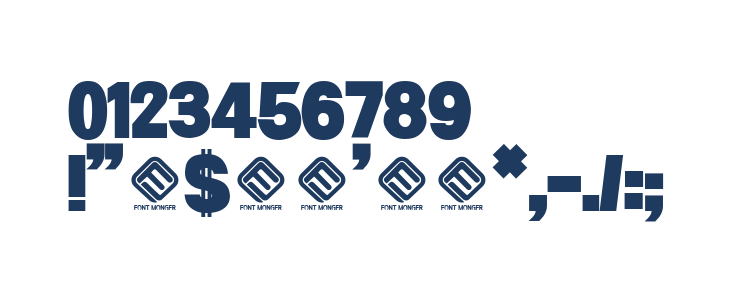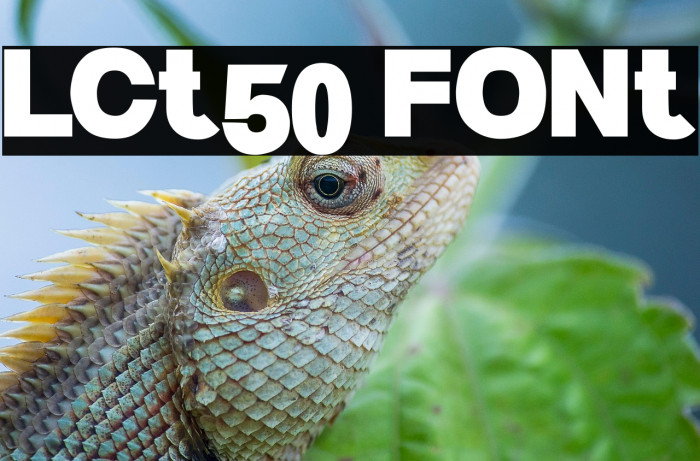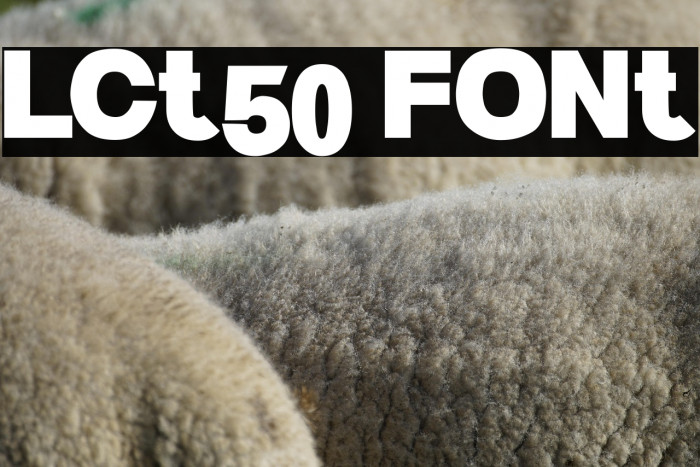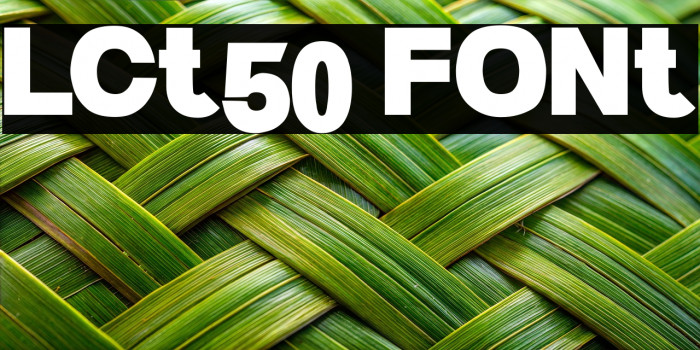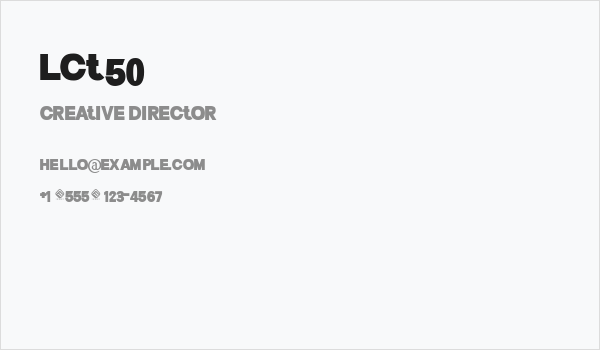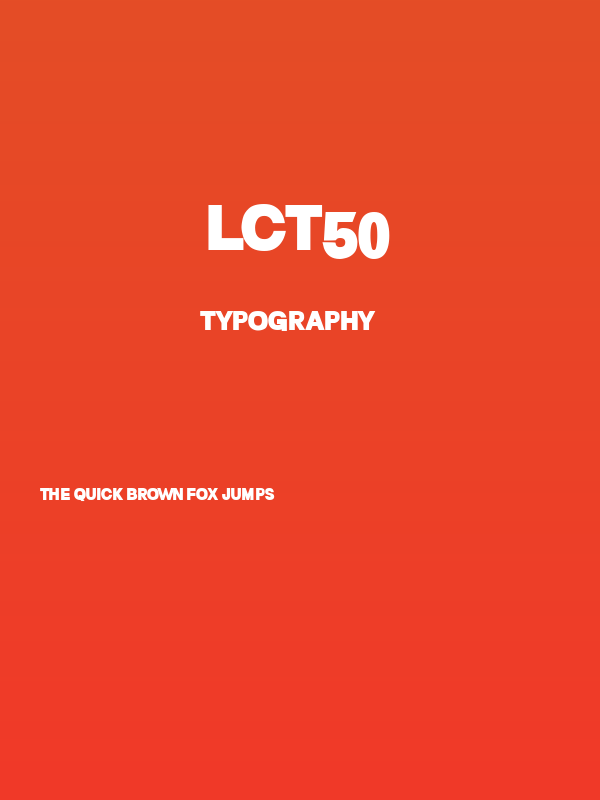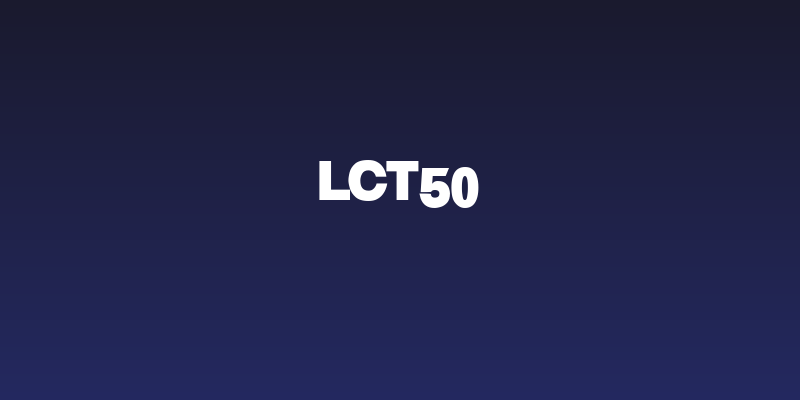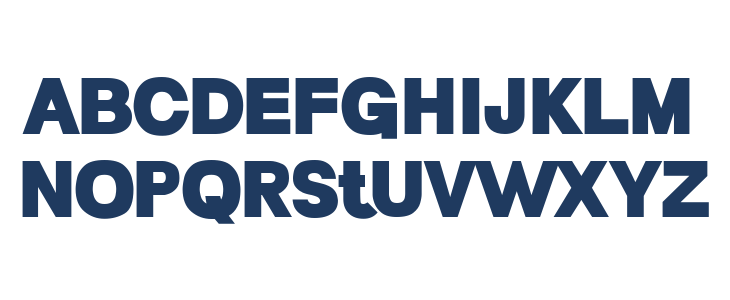
LCt50 Font
LCt50 Description
This bold and impactful font features strong, thick strokes that create a commanding presence. The uppercase letters are uniform in height, with a consistent width that gives the font a solid and stable appearance. The lowercase letters maintain the same boldness, ensuring readability and consistency across different text sizes. The numbers are equally bold, making them stand out prominently. Special characters are designed with the same thickness, ensuring they integrate seamlessly with the rest of the font. This font is ideal for making a strong statement, with its high contrast and bold weight.
| Proposed Projects | Ideal for headlines, posters, branding, and any design requiring a strong visual impact. |